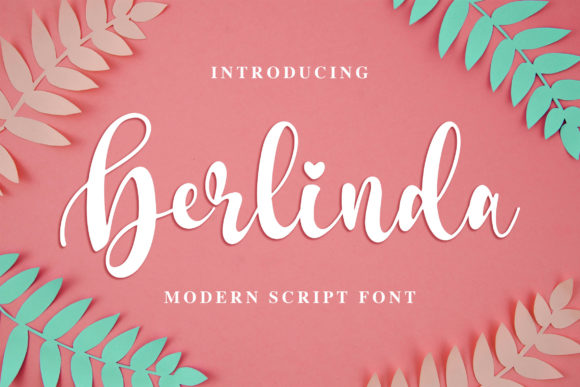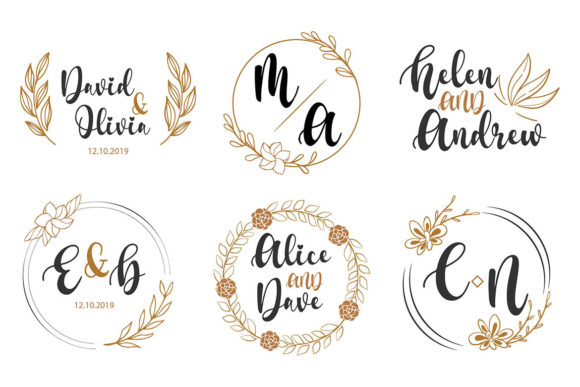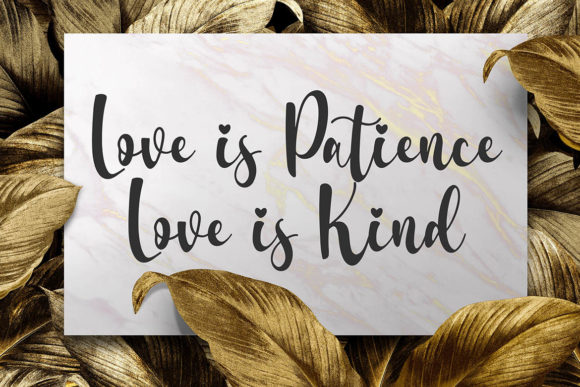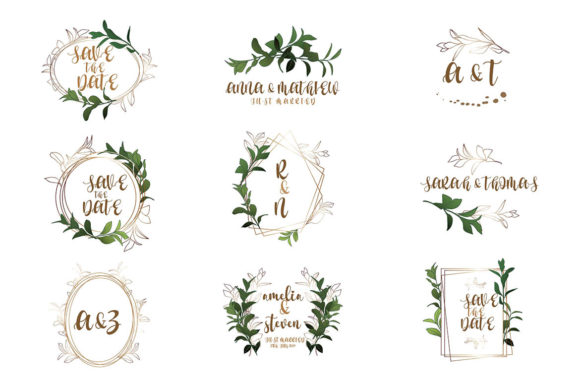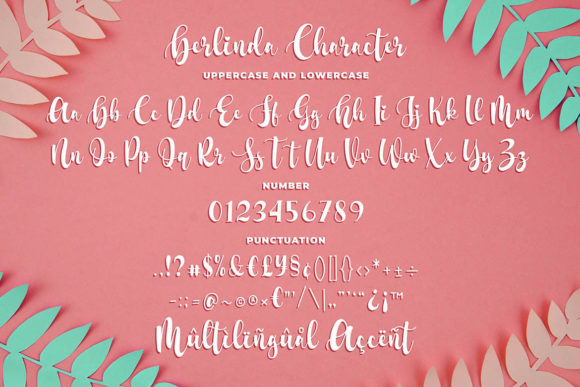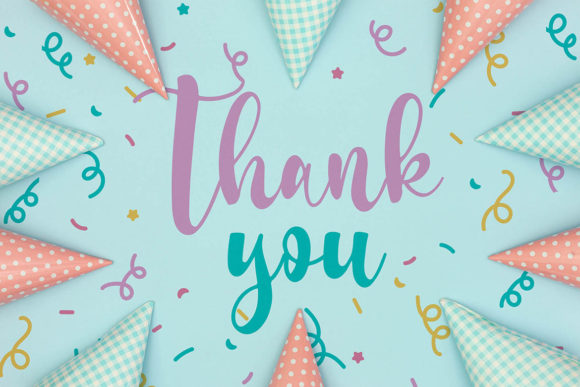
Berlinda Font
About Berlinda Font
Berlinda is a gorgeous script with a light, summery and casual feel. It will turn any creative idea into a masterpiece.